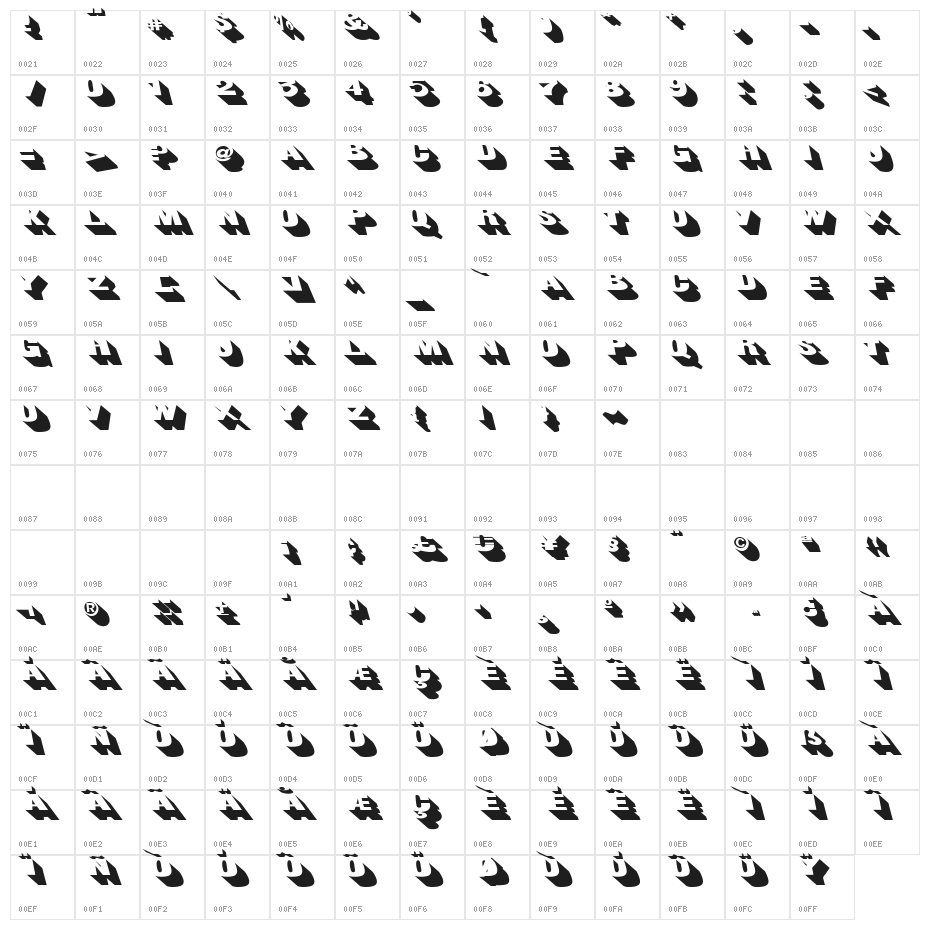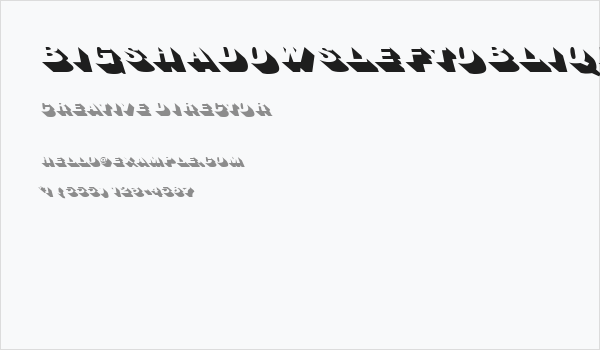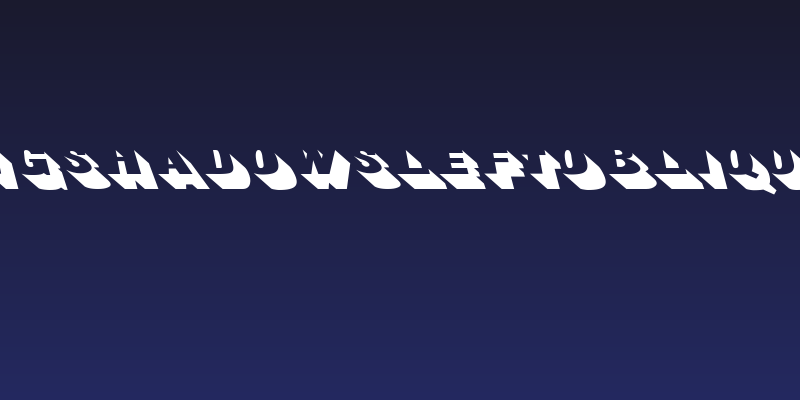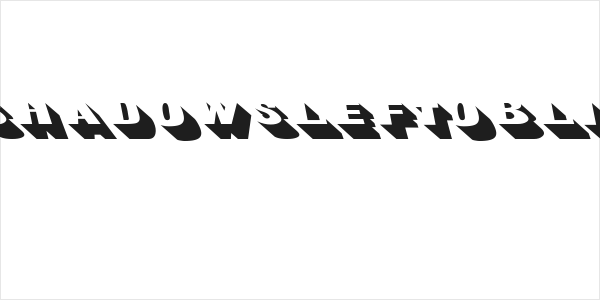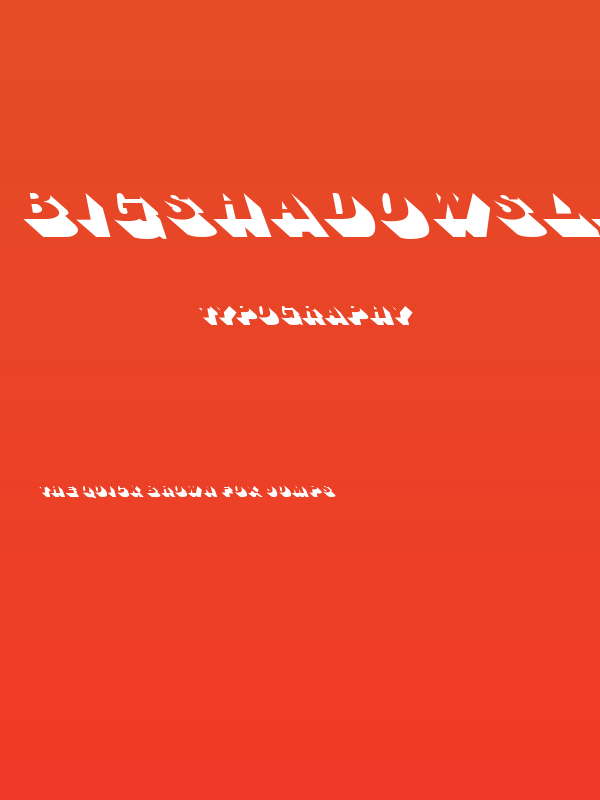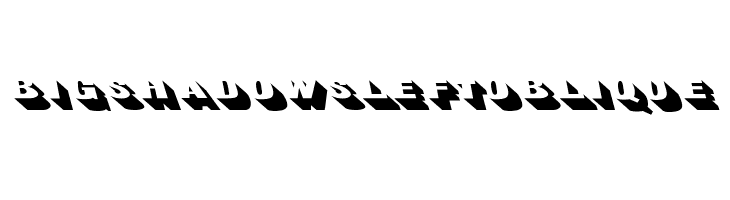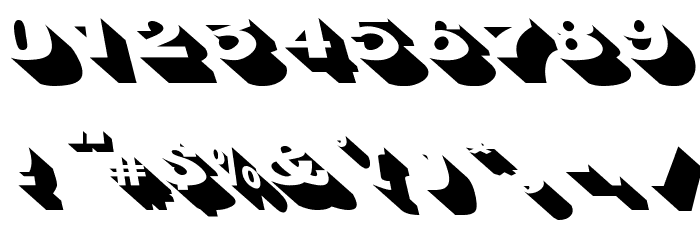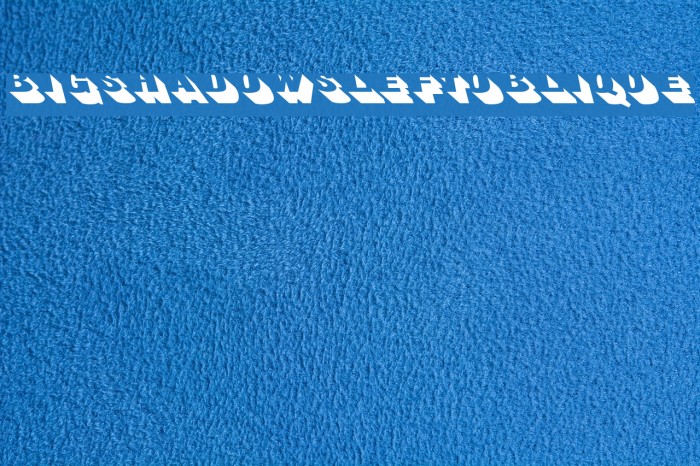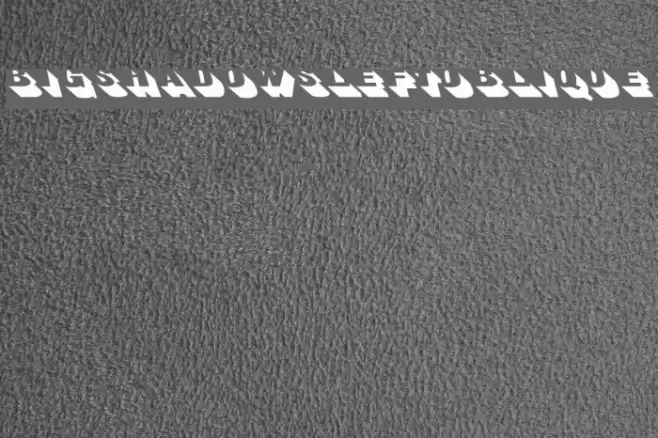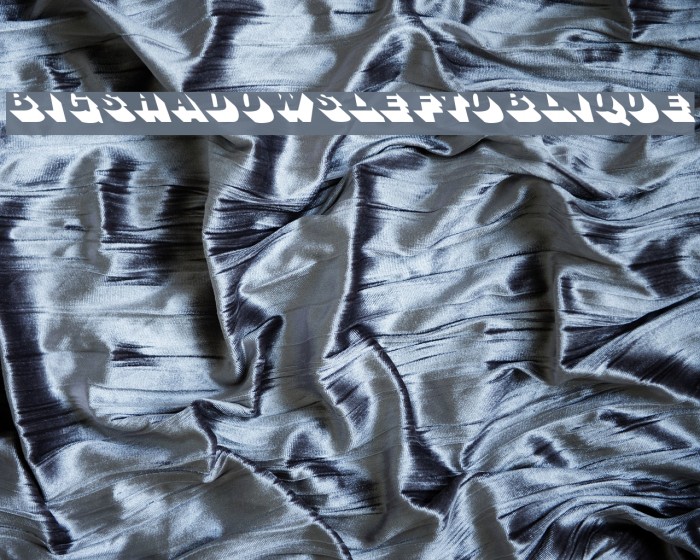
BigShadowsLeftOblique Font
BigShadowsLeftOblique Description
This font features a bold, dramatic style with a strong 3D shadow effect that leans to the left, creating a sense of depth and movement. The characters are uppercase and lowercase letters, along with numbers and a selection of special characters. Each letter is designed with a thick, solid structure, emphasizing a heavy and impactful appearance. The shadow effect is consistent across all characters, enhancing the overall dynamic and eye-catching quality of the font. This style is particularly suited for making a bold statement in design projects.